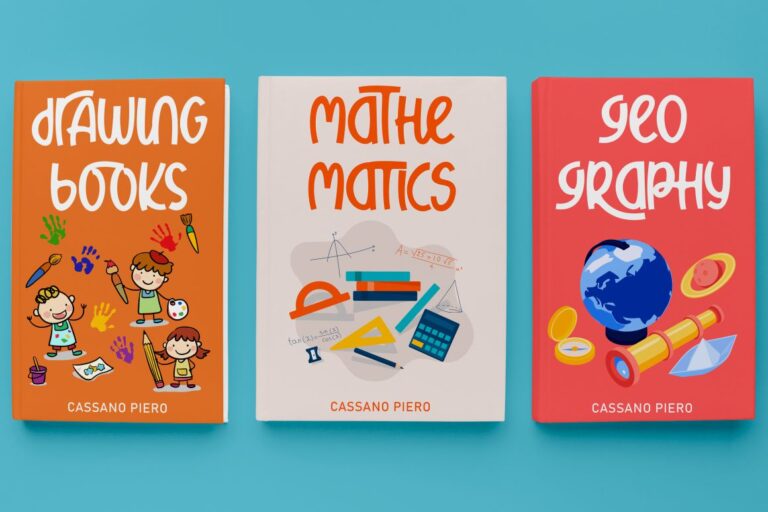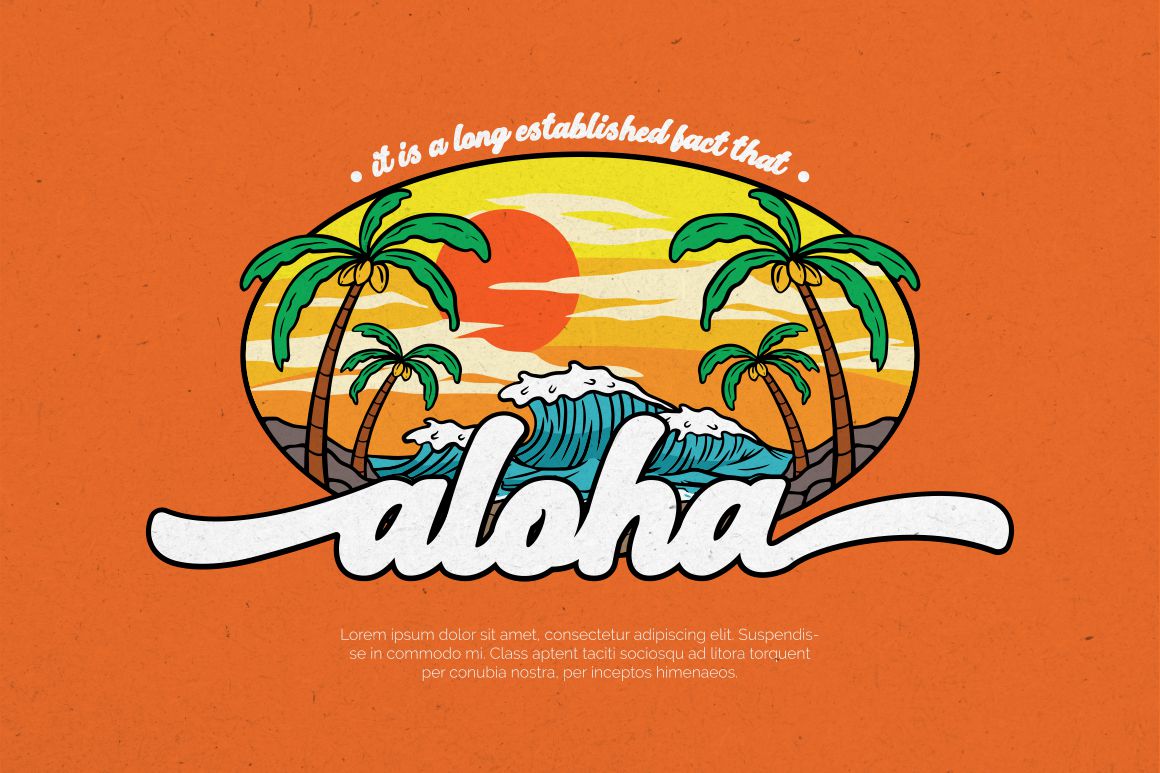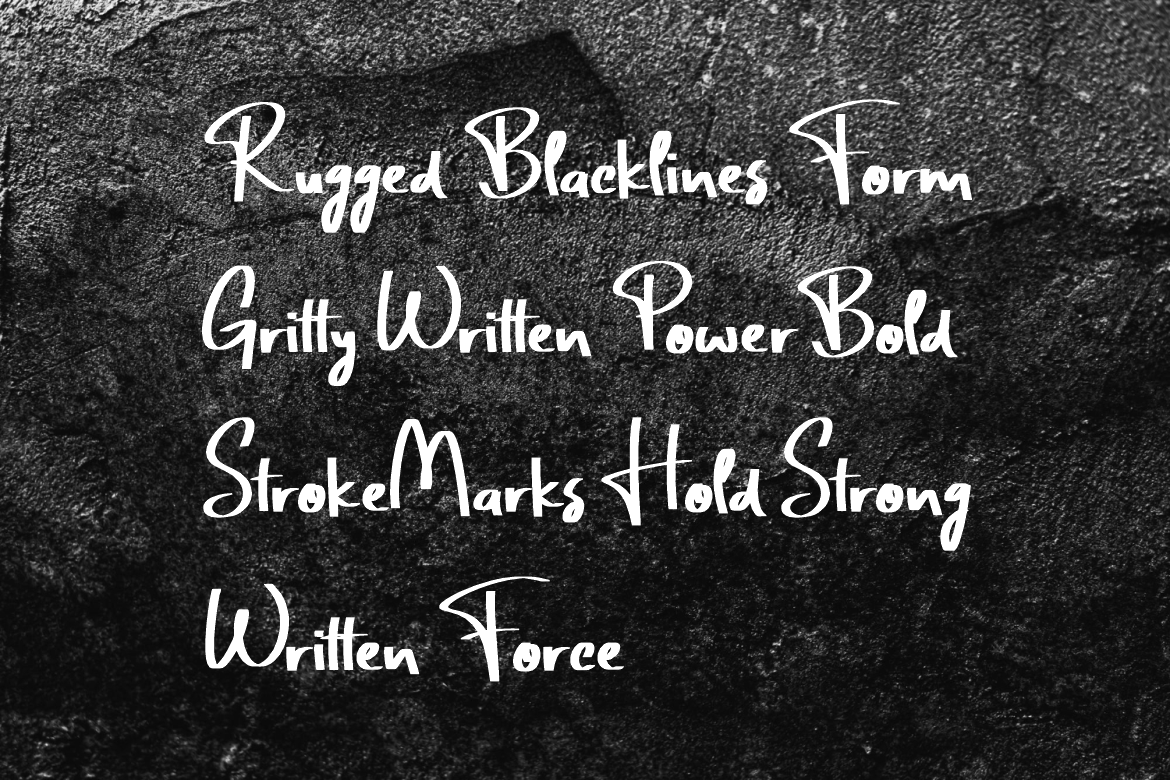
The Best Display Fonts for DIY Creative Projects
DIY projects are all about creativity, personality, and personal touch and typography plays a surprisingly big role in bringing that spirit to life. Whether it’s a custom jar label, a handmade greeting card, or a decorative wall quote, the font you choose sets the tone and emotion behind your work.
In the world of design, display fonts are the heroes of self-expression. Unlike text fonts meant for long paragraphs, display fonts are crafted to stand out. They are bold, artistic, and attention-grabbing perfect for titles, logos, or any project that demands visual flair.
This article explores how display fonts can transform everyday DIY projects into artistic, memorable creations. We’ll look at the best styles for different occasions, offer practical font pairing advice, and highlight premium display fonts from Putracetol.com that combine charm, readability, and creativity.
1. What Are Display Fonts and Why Do They Matter in DIY Design?
Display fonts are typefaces specifically designed to grab attention. They’re often decorative, stylized, and full of character — making them ideal for short, impactful text like titles, signage, or product labels. In DIY projects, these fonts add personality and emotional depth that plain typography simply can’t achieve.
Why Display Fonts Matter:
• They set the tone — playful, elegant, rustic, or retro.
• They enhance visual hierarchy — ensuring your key message stands out.
• They add character — making your design unique and memorable.
When creating something handmade or personal, your choice of font becomes part of your creative voice. A handwritten font might say crafted with love, while a bold retro font might scream fun and nostalgia.
💡 Tip: Use display fonts for headlines and pair them with simpler sans-serif fonts for body text to maintain balance and readability.
2. Playful and Handwritten Fonts: Perfect for Family and Craft Projects
DIY projects often thrive on warmth, creativity, and connection, qualities that handwritten or doodle-style fonts naturally convey. These fonts feel human, friendly, and full of life, making them ideal for personalized crafts, labels, or children’s activities.
Top Picks from Putracetol.com:
• Sweety Lover Font – Whimsical and romantic, ideal for gift tags, handmade packaging, or Valentine’s DIY art.
• Child Krafter Font – Playful yet clean, excellent for family crafts and DIY teaching materials.
These fonts mimic natural handwriting, adding authenticity to every creation. They remind viewers that your project was made by hand full of warmth and intention.
💡 Design Tip: Use handwritten fonts with textured paper backgrounds or watercolor elements for an even more authentic handmade feel.
3. Retro and Vintage Fonts: For Nostalgic, Eye-Catching DIYs
Retro-style typography has made a huge comeback in DIY and decor design. Inspired by the 1970s and 1980s, these fonts bring vibrancy, nostalgia, and personality to projects like posters, mugs, or wall art.
• Retro Summer Font – A groovy, sunshine-filled typeface perfect for vintage decor or retro party invitations.
Retro fonts capture the playful aesthetics of yesteryear think record labels, diner menus, and movie posters making them excellent choices for projects that need bold color and energy.
💡 Bonus Tip: Pair retro fonts with solid color blocks, geometric shapes, or gradient backdrops to enhance their nostalgic charm.
4. Cartoon and Doodle Fonts: Add Fun and Whimsy
For designs aimed at children or lighthearted audiences, cartoon-inspired fonts bring out the fun factor. These fonts often feature exaggerated shapes, rounded edges, and expressive letterforms that make designs feel approachable and energetic.
• Hostel Vintage Font – Retro-cartoon charm with a casual flow, perfect for party decor and invitations.
• Beautiful Magic Font – Playful and dreamy, suitable for DIY notebooks, stickers, or event posters.
Cartoon fonts excel in projects like birthday invitations, DIY signs, or classroom art. They spark joy and instantly capture children’s attention while staying legible and adaptable across different print formats.
💡 Tip: Avoid mixing too many decorative styles. Use one expressive display font as the star, and keep the rest minimal for balance.
5. Craft and Handmade Fonts: A Cozy Touch for Rustic Designs
If you love farmhouse-style decor, rustic packaging, or handmade goods, craft-inspired display fonts bring texture and authenticity to your designs. These fonts mimic brush strokes, chalk writing, or stitched lettering, perfect for labeling handmade candles, baked goods, or natural products.
Because in DIY design, every detail counts and your font choice is where the story begins.